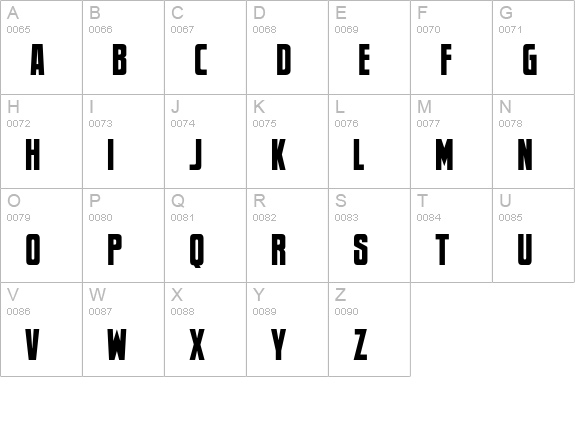
Introducing Newsflash BB font, a bold and attention-grabbing typeface perfect for making headlines and breaking news stand out. The Newsflash BB font exudes a sense of urgency and importance, making it ideal for designs that require a strong and impactful statement. With its sharp edges and modern aesthetic, this font is sure to capture the audience's attention and convey information effectively. The best part? Newsflash BB font is available for free download at FontsMarket.com! Now you can enhance your projects with this dynamic and versatile font without any cost. Whether you're designing a newspaper layout, creating promotional materials, or crafting social media graphics, Newsflash BB font will elevate your work to the next level. Download it now and make your headlines pop with this eye-catching typeface.